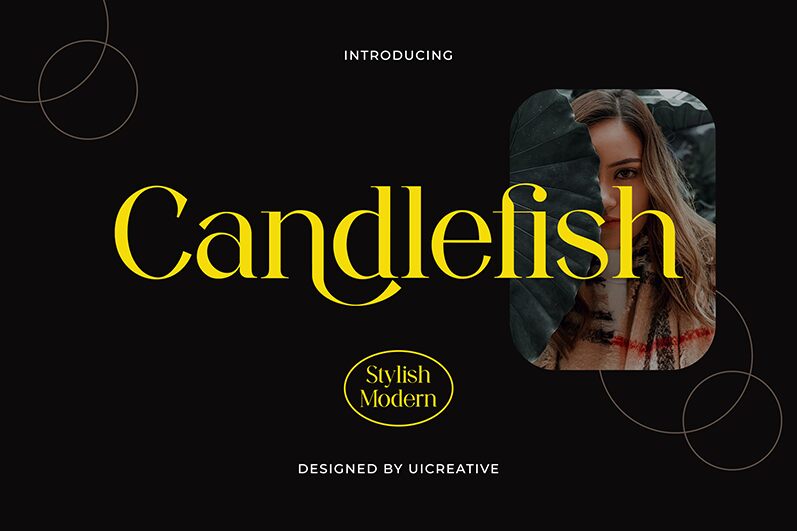
Candlefish
Candlefish, a captivating serif font crafted by UI Creative, exudes a timeless elegance. With its refined, sophisticated lines and gentle curves, this typeface conveys a sense of refined sophistication. The font's refined aesthetic effortlessly blends tradition and modernity, making it a versatile choice for a wide range of design applications.
Candlefish's distinctive characteristics, such as its subtle contrast and delicate serifs, lend an air of refined charm to any project. This font's captivating personality seamlessly complements both formal and contemporary design settings, making it a valuable asset for graphic designers, branding professionals, and editorial teams seeking to elevate their visual narratives.